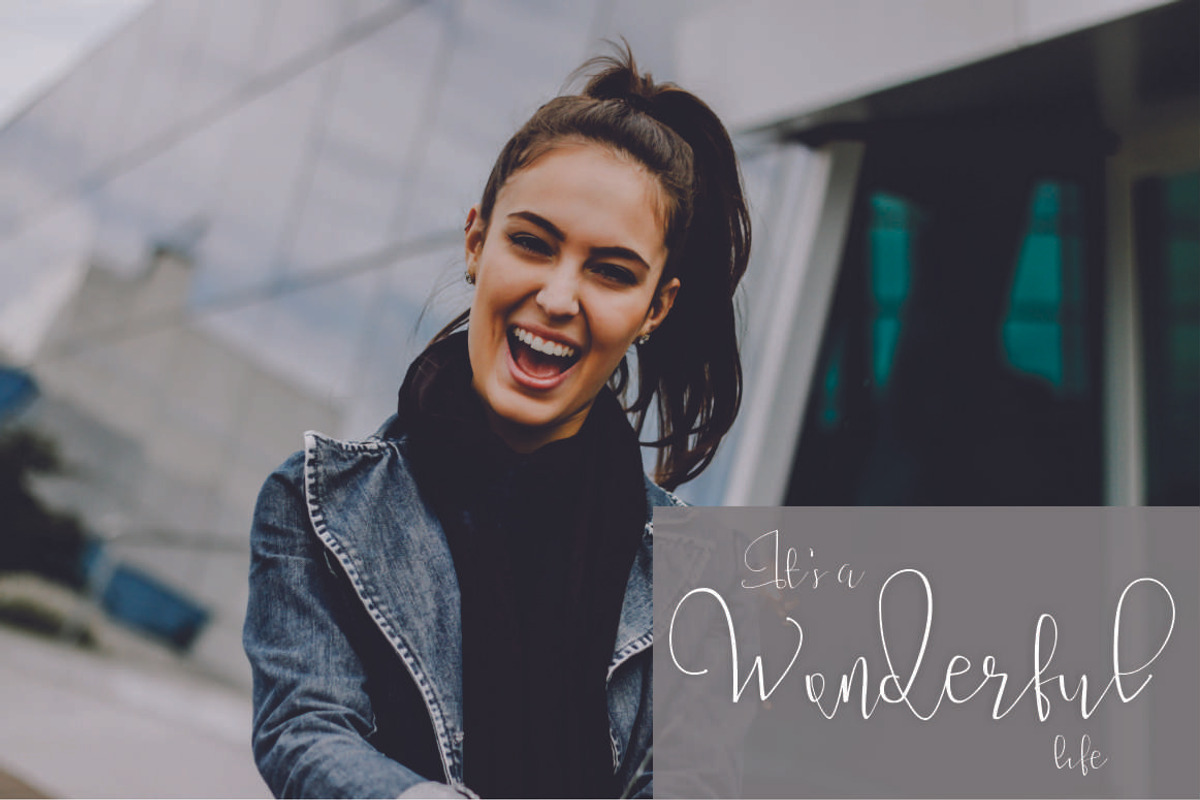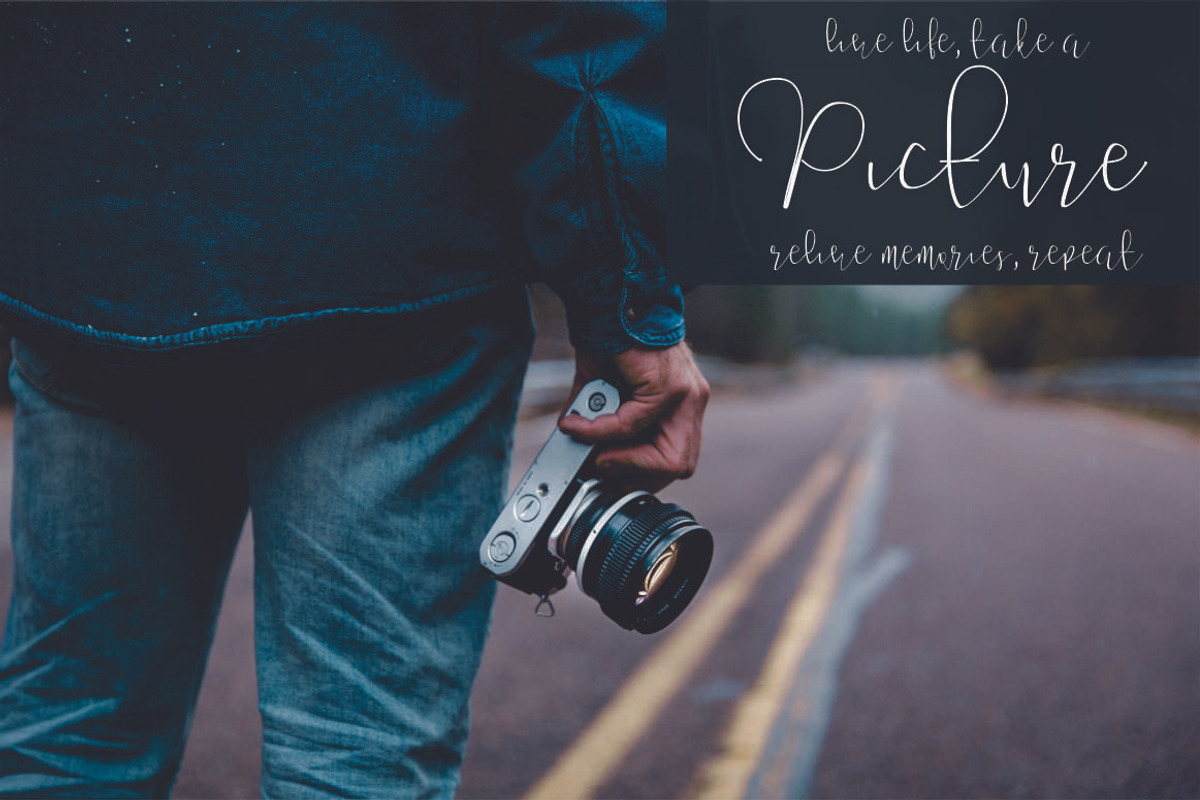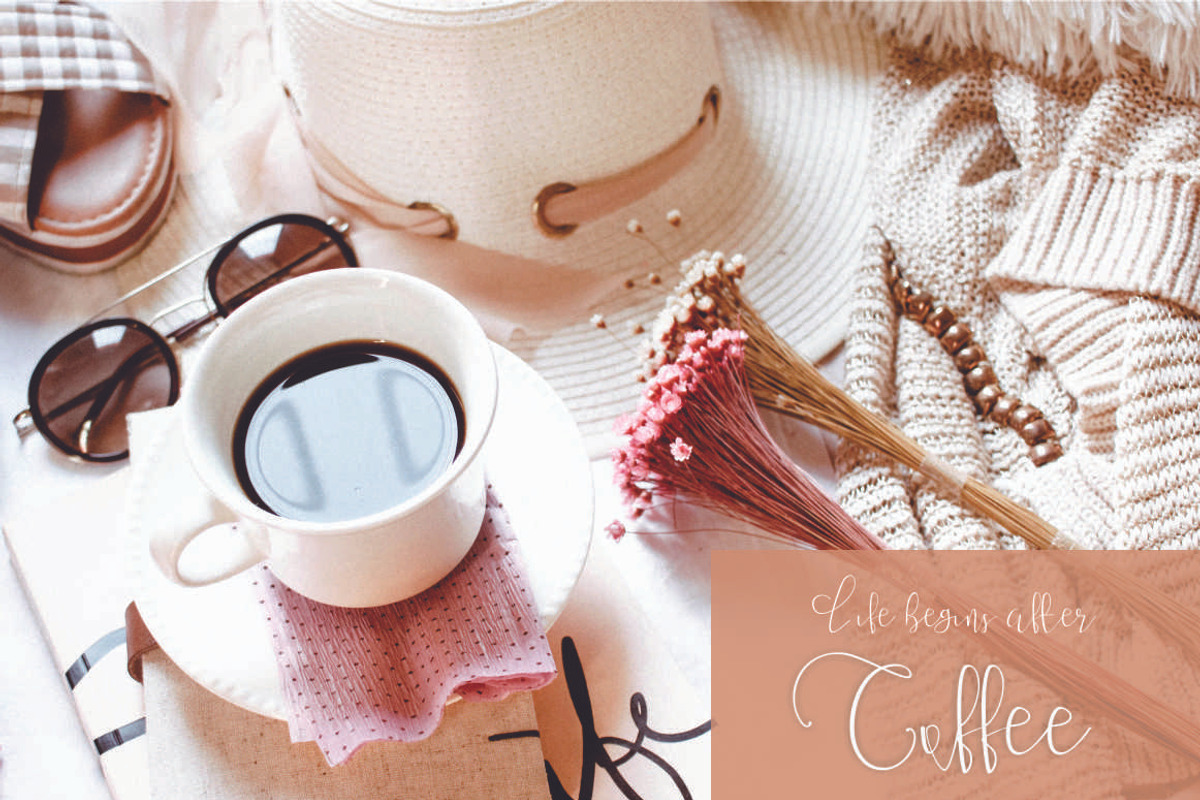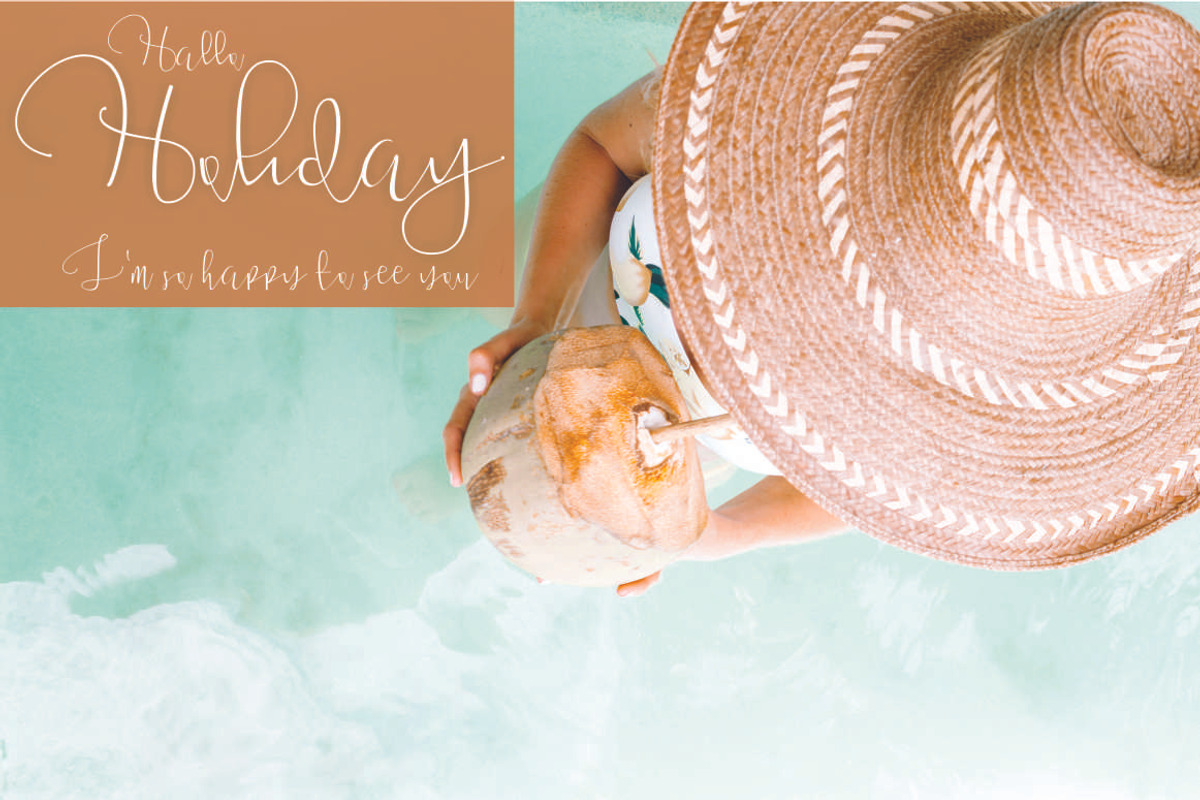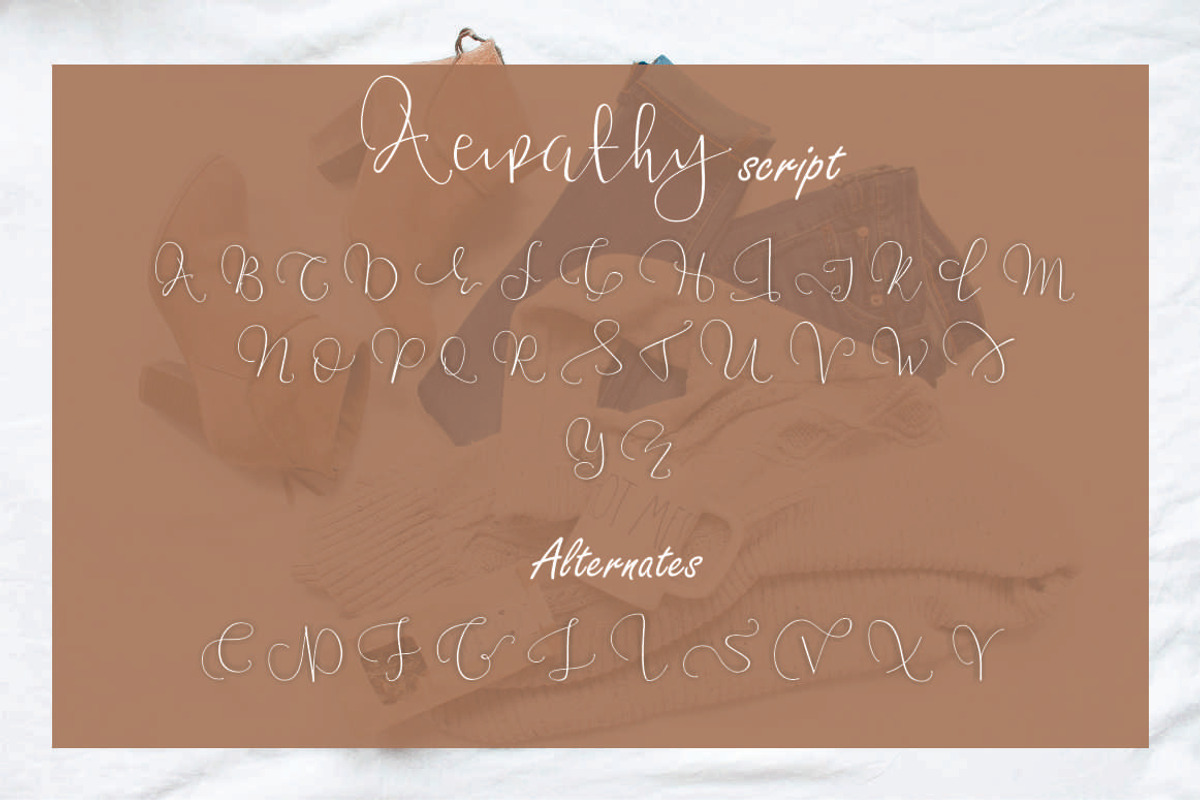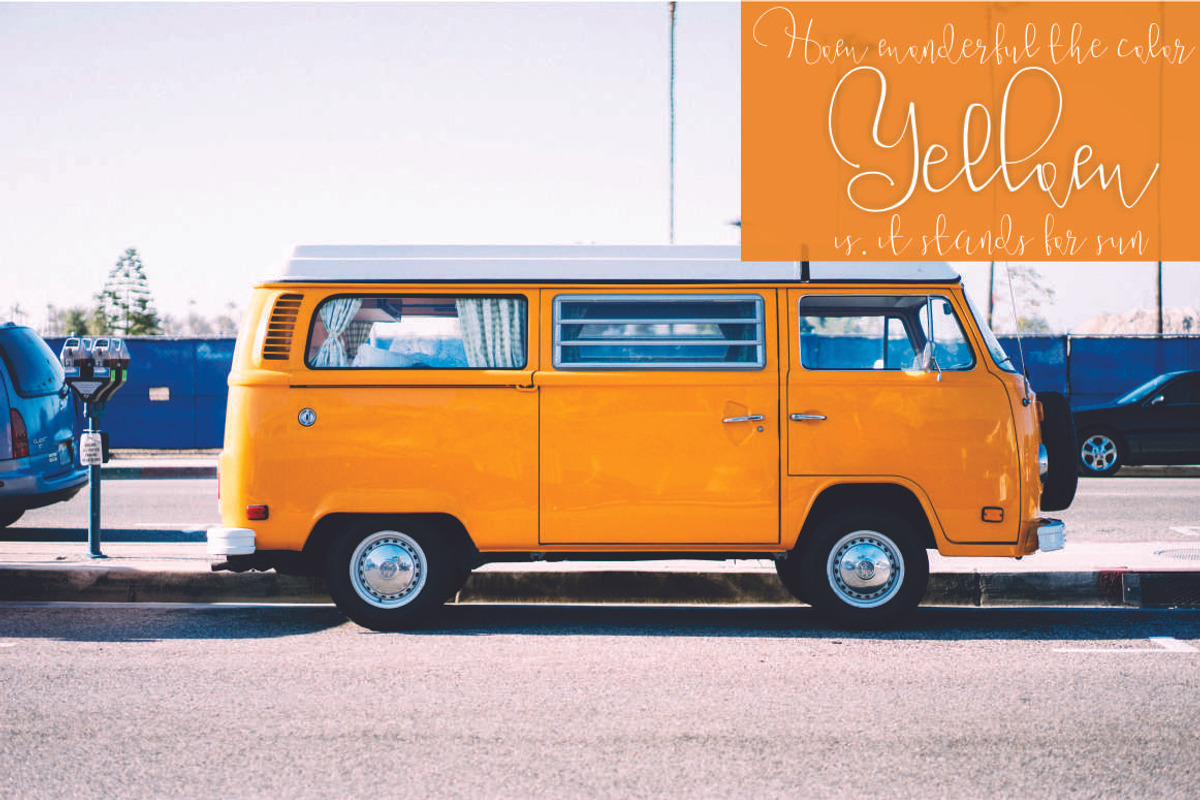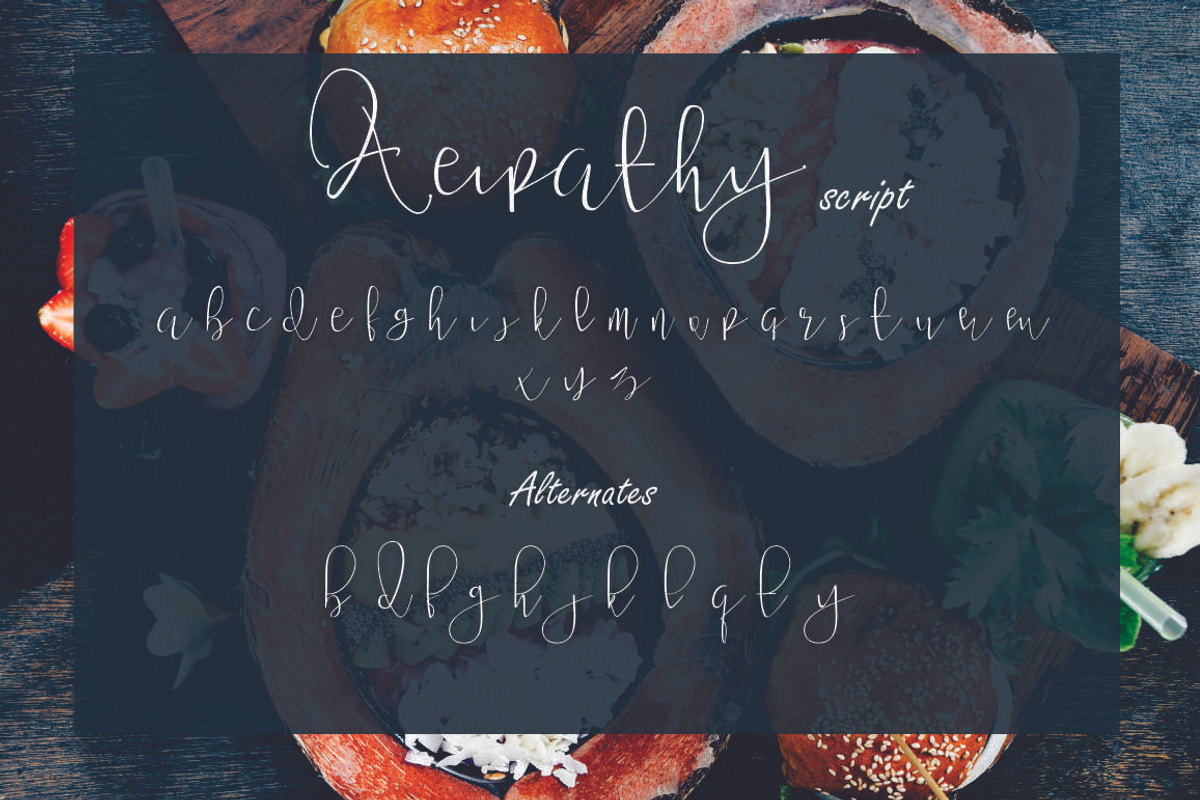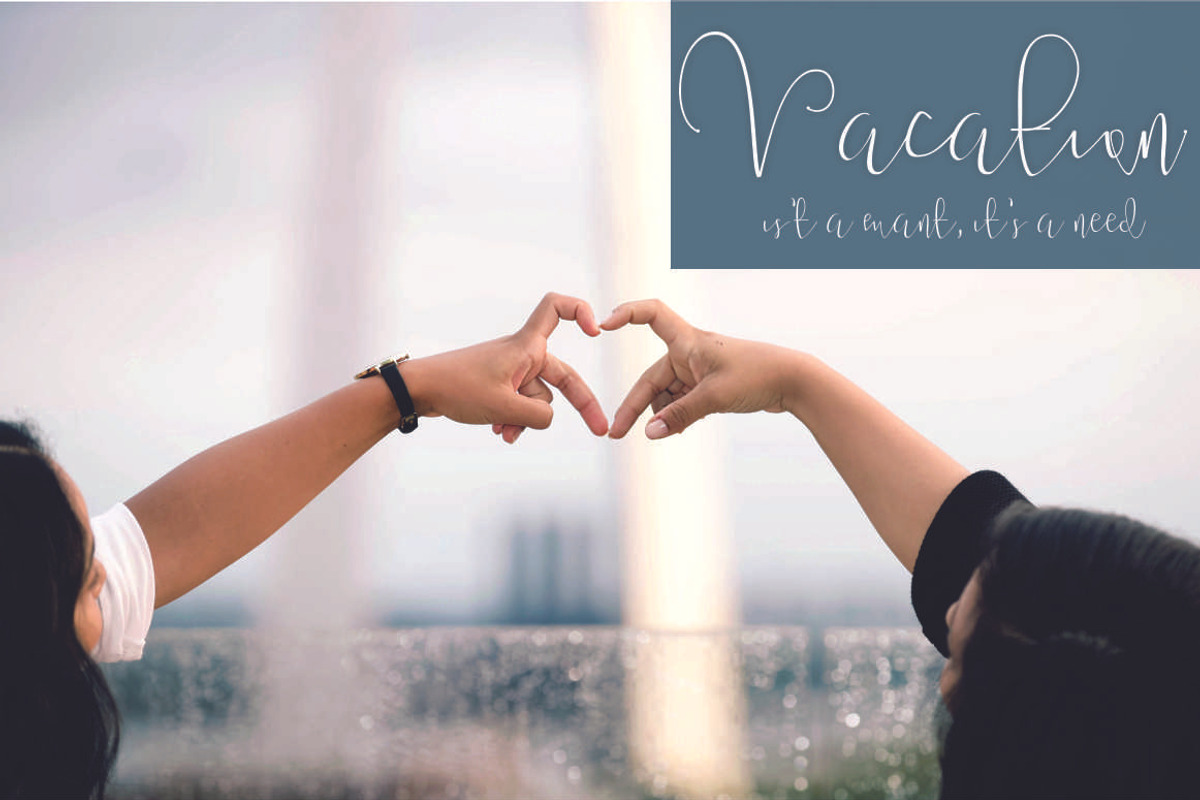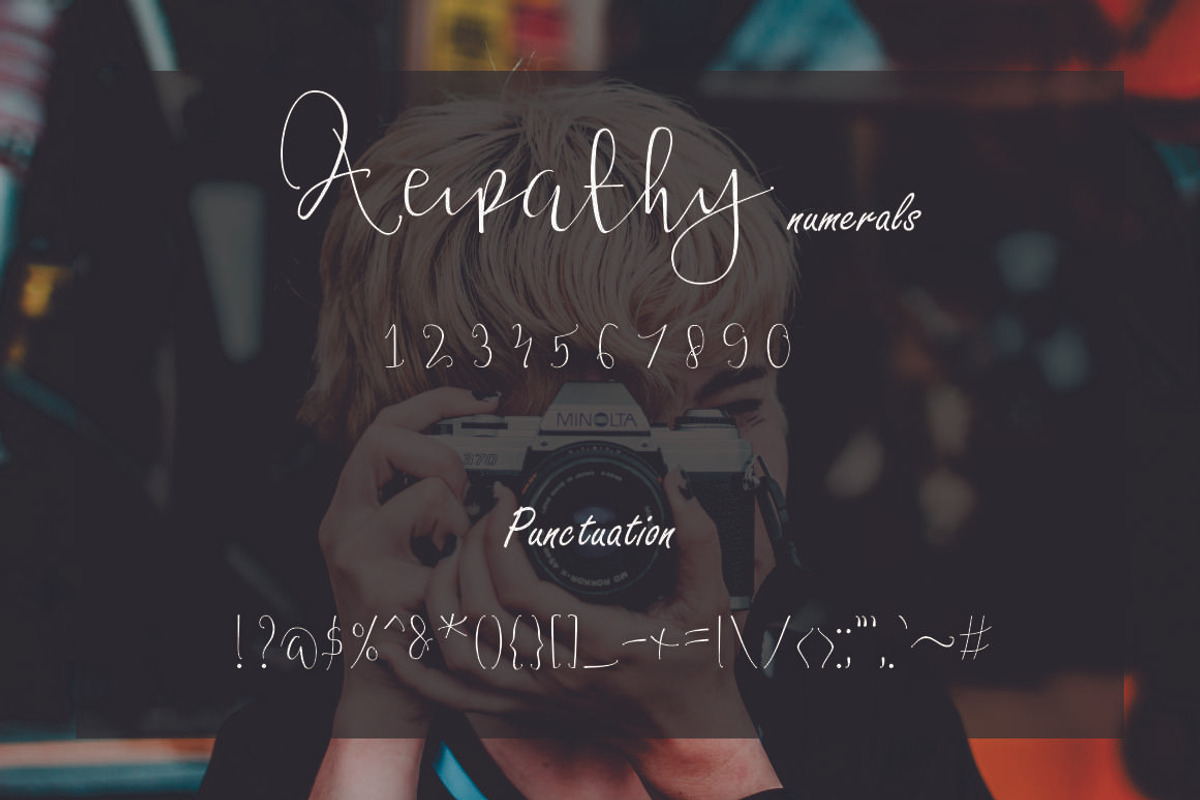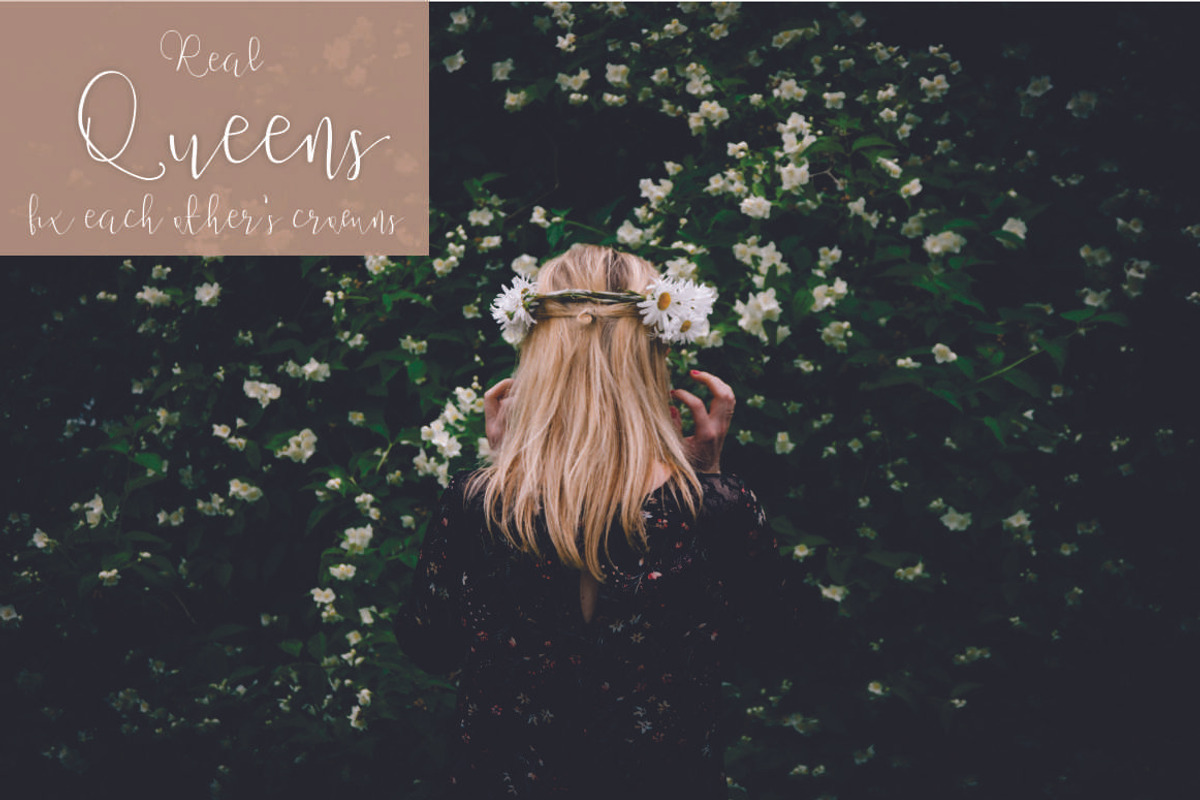
Aeipathy
Aeipathy. A new lovely font.
Aeipathy is perfect for elegant logos, branding, wedding stationary, website, and any projects requiring a lovely handlettering.
Aeipathy includes uppercase and lowercase letters, numerals, punctuation, and alternates (You can see the example in the pictures).